Selecting the perfect font for a tattoo is an art form that goes far beyond simply choosing a typeface. It’s about creating a personal statement that reflects your individuality, emotions, and the message you want to permanently etch onto your skin. Fonts for tattoos are more than just letters—they’re a visual language that speaks volumes about your personal style, cultural background, and emotional journey.
Understanding the Importance of Font Selection
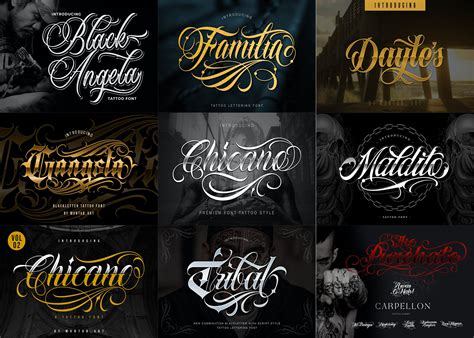
When it comes to fonts for tattoos, every curve, line, and stroke matters. The right font can transform a simple word or phrase into a powerful piece of personal art. Whether you’re considering a delicate script, a bold statement, or a meaningful quote, the typography you choose will dramatically impact the overall aesthetic and emotional resonance of your tattoo.
Popular Font Styles for Tattoos
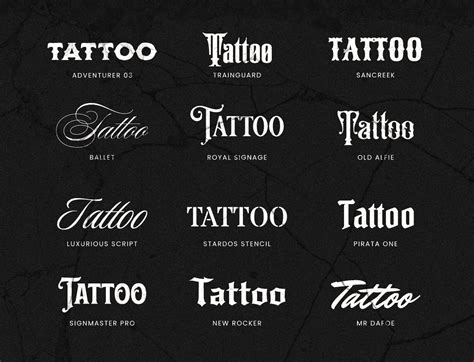
Tattoo artists and enthusiasts have developed a rich palette of font styles that cater to different tastes and meanings:
- Script Fonts: Elegant and flowing, perfect for romantic quotes or personal mantras
- Old English/Gothic Fonts: Bold and dramatic, often used for names or powerful statements
- Minimalist Sans-Serif: Clean and modern, ideal for contemporary designs
- Calligraphy: Artistic and intricate, bringing a hand-crafted feel to tattoos
Choosing the Right Font for Your Personal Style
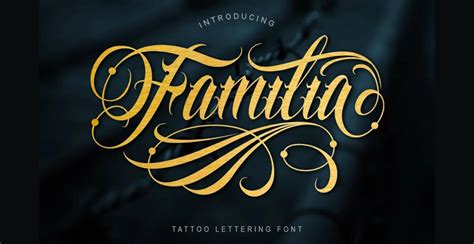
Selecting fonts for tattoos requires careful consideration of several key factors:
- Personal Meaning: The font should resonate with the emotional significance of your tattoo
- Body Placement: Different fonts work better on different body areas
- Readability: Ensure the font remains legible over time
- Skin Tone and Texture: Some fonts work better with specific skin types
Technical Considerations for Tattoo Fonts
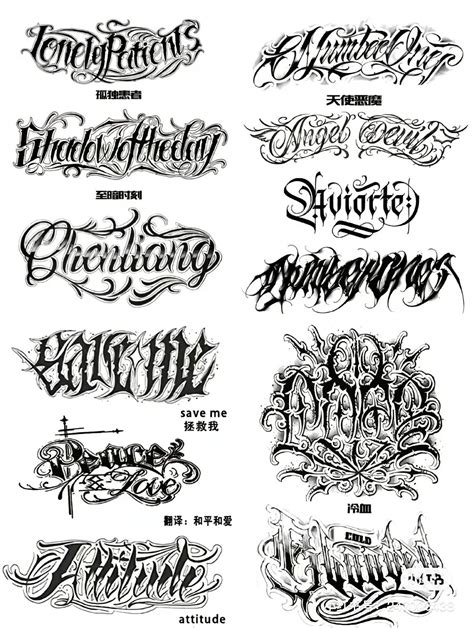
Professional tattoo artists recommend considering these technical aspects when selecting fonts for tattoos:
- Line thickness and how it ages on skin
- Complexity of the font design
- Potential for future touch-ups
- How the font will look as you age
The journey of selecting the perfect tattoo font is deeply personal and transformative. It's about finding a typographic expression that speaks directly to your soul, capturing a moment, emotion, or belief in a way that transcends ordinary communication.
How do I choose the right font for my tattoo?
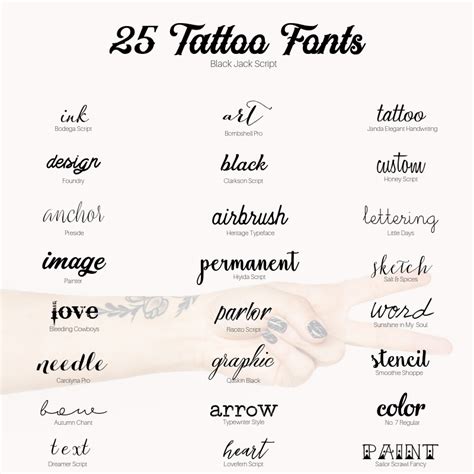
Consider the meaning behind your tattoo, your personal style, body placement, and consult with a professional tattoo artist for personalized advice.
Do certain fonts work better for specific body parts?
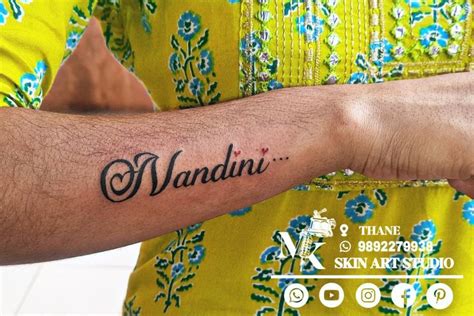
Yes, curved areas like the spine or wrist work well with flowing script fonts, while larger areas can accommodate more complex or bold typography.
How can I ensure my tattoo font remains readable over time?
Choose fonts with clean lines, avoid extremely thin or overly complex designs, and work with an experienced tattoo artist who understands how fonts age on skin.